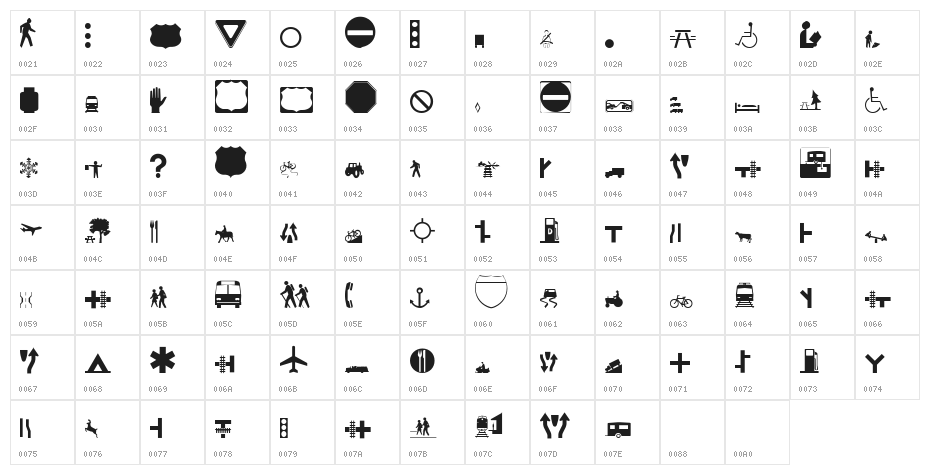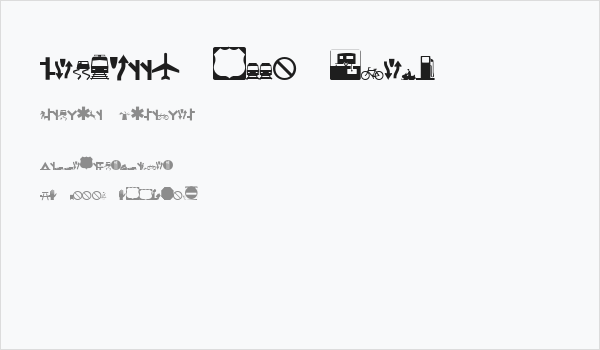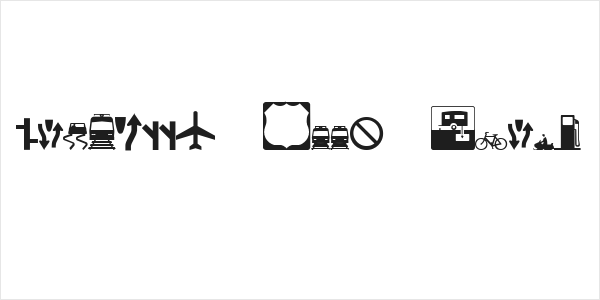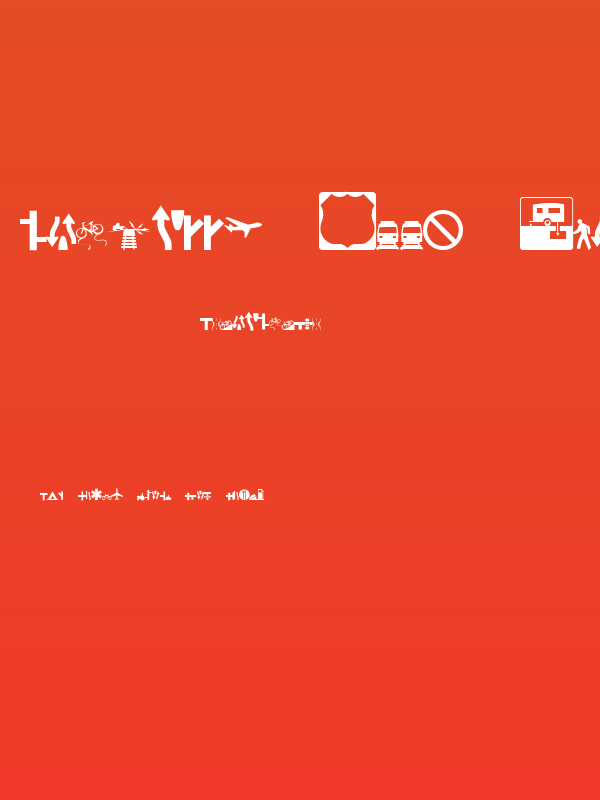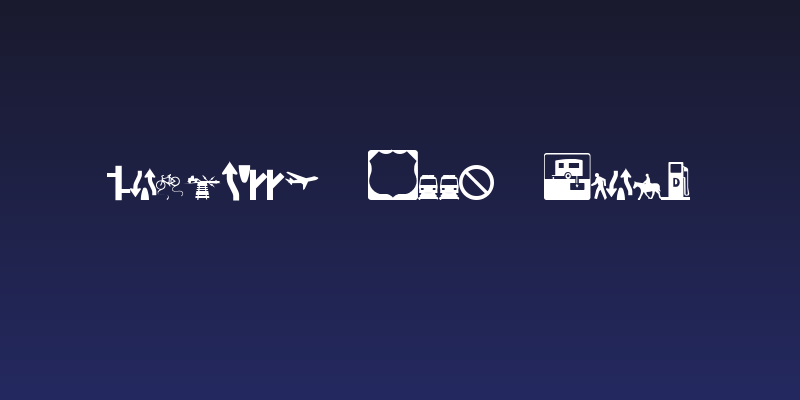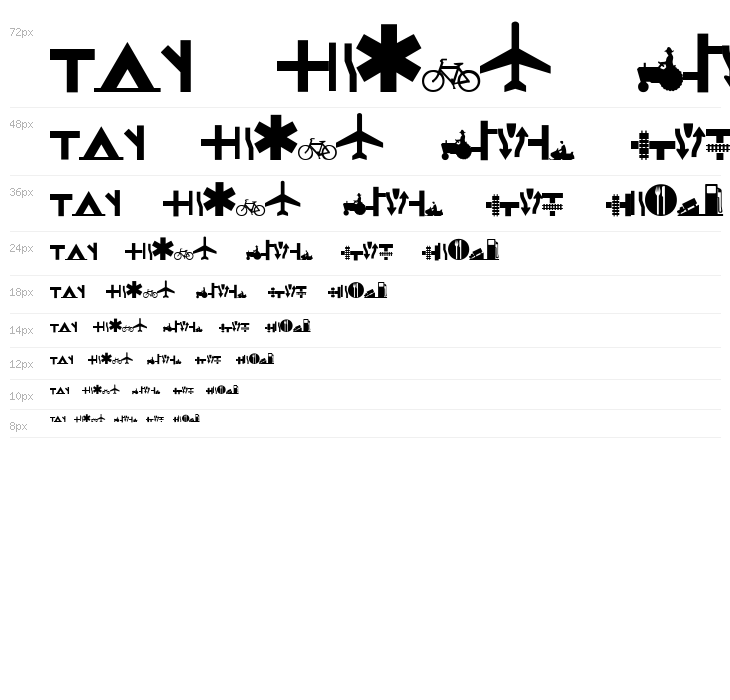
Roadgeek 2005 Icons Font
Roadgeek 2005 Icons Description
A collection of pictogram glyphs representing various road signs, transportation modes, and public facilities, rendered in a bold, geometric, and highly legible style suitable for signage and wayfinding.
| Overall Style | Modern, Functional, Pictographic |
| Use Case | Icons, Signage, Maps, Informational Graphics |
| Proposed Projects | Wayfinding systems, transportation maps, infographics, educational materials, public signage, and icon sets. |